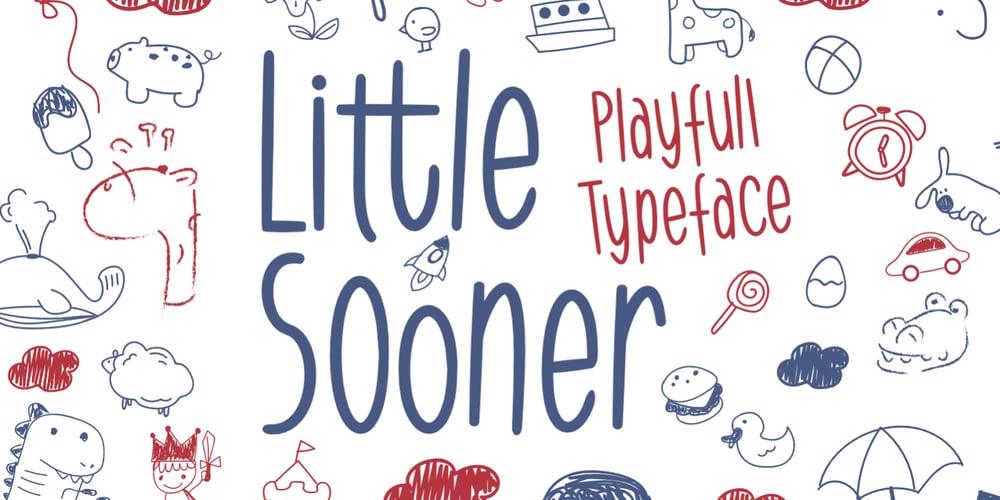
Little Sooner Font Family was designed by Toni Dzulham and published by Dumadi. Little Sooner contains 1 styles and family package options. Little Sooner is a special handmade font using the Brush tool. This font is specially designed for children with a full-color style that will enhance the quality of your designs. very suitable for the design of children’s t-shirts, children’s youtube titles, children’s quotes, children’s web, and others.